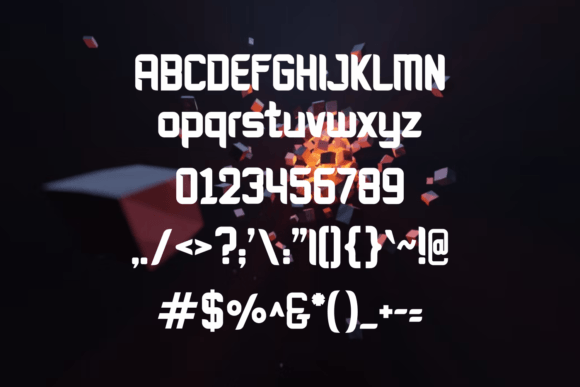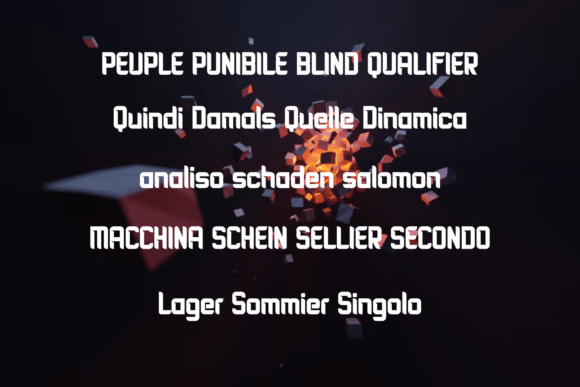
Introduction to Mashar Font
As designers, we’ve all been there – staring at a blank canvas, searching for that perfect font to bring our creative project to life. It’s a moment of pure excitement and anticipation, where the right choice can make all the difference. For many of us, finding the perfect font can be a daunting task, but what if I told you there’s a game-changer out there? Meet the Mashar Font, a cool and unique sans serif font that’s about to become your new best friend.
Key Features of Mashar Font
- Mashar Font is a high-quality design resource, perfect for creative projects that require a unique and modern touch.
- This font features a transparent background, making it easy to overlay on images or use as a standalone design element.
- This font is ideal for designers working on creative projects that require a modern and sophisticated look, such as branding, advertising, and digital media.
Honest Review: Mashar Font
Mashar Font is a fantastic design resource for anyone looking to add a touch of elegance to their creative project. I was pleasantly surprised by the high quality of this free download, which boasts a sleek and modern design.
Here are some of the things that work well for Mashar Font:
- ✨ Unique and stylish design that’s perfect for creative projects
- ✨ High-quality font that’s suitable for both print and digital use
- ✨ Transparent background, making it easy to layer over other design elements
However, I did notice a few limitations with Mashar Font:
- ⚠️ Limited character set, which may not be ideal for projects that require extensive text
- ⚠️ May not be suitable for use in all languages, due to its specific design
Overall, I’m impressed with Mashar Font and would recommend it to designers looking for a high-quality, free design resource. Just be aware of its limitations and use it accordingly.
Tips for Getting the Most Out of Mashar Font
For optimal results, use Mashar Font on high-quality images or backgrounds. Experiment with different font sizes and styles to create visual interest. You can also combine the font with other design elements to create a unique and eye-catching design.
Mashar Font is perfect for creative projects that require a high-quality, unique font. It’s ideal for use in presentations, documents, and digital designs. The font’s transparent background makes it easy to overlay on images or videos, making it a valuable design resource for anyone looking to add a creative touch to their work.